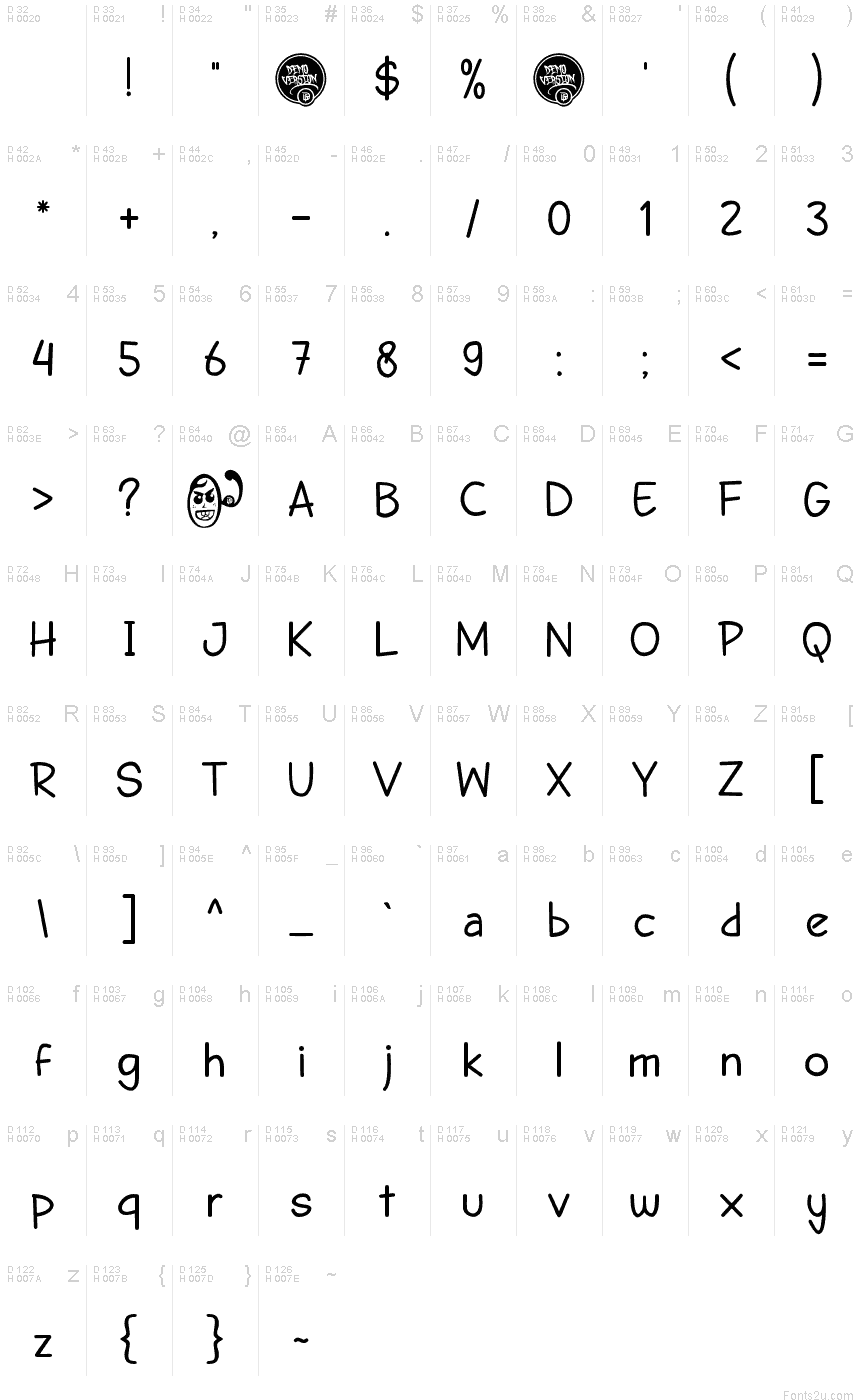
DHF Semangat 2012 Demo
The special font for Indonesian youth to never stop working.
Dexsar Harry Fonts (DHF)
The special font for Indonesian youth to never stop working.